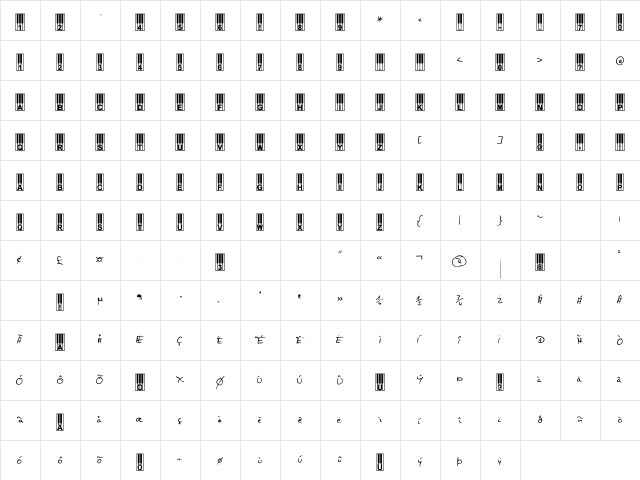
Complete DBGraph07 glyph index. Displaying only characters natively supported by DBGraph07 font.
DBGraph07 is a composed and adaptable typeface that performs quietly and consistently across a wide range of design contexts.